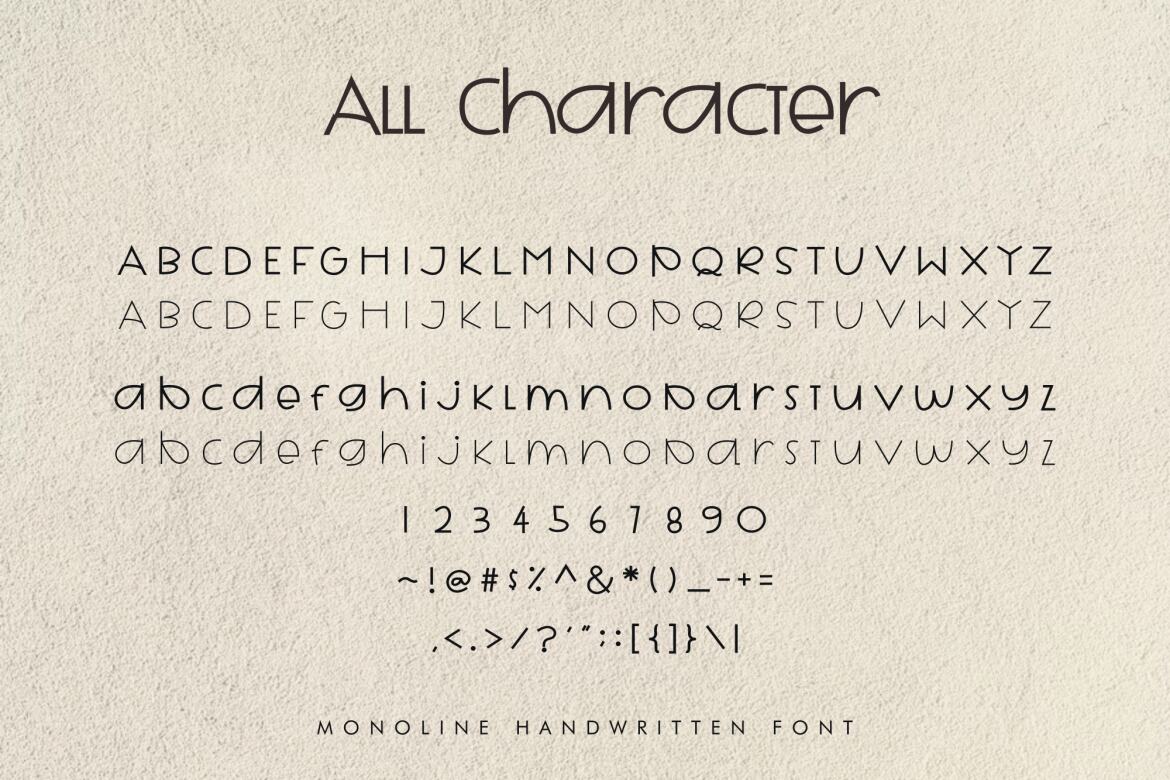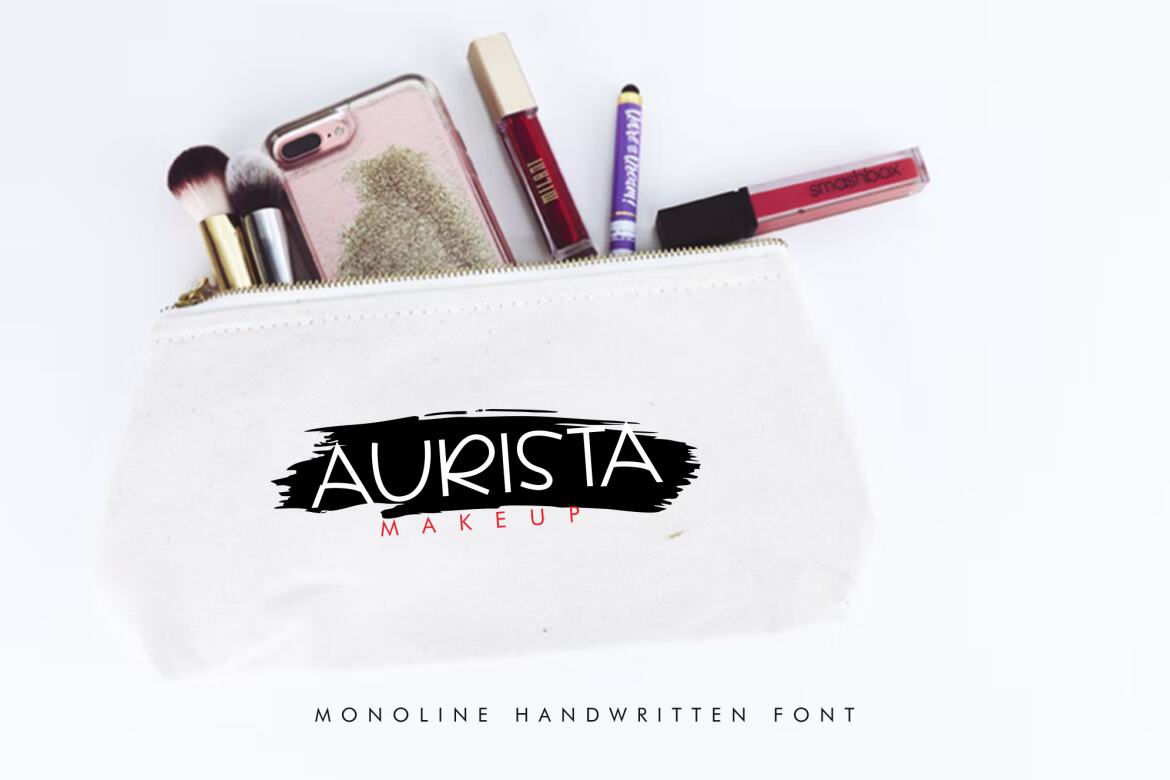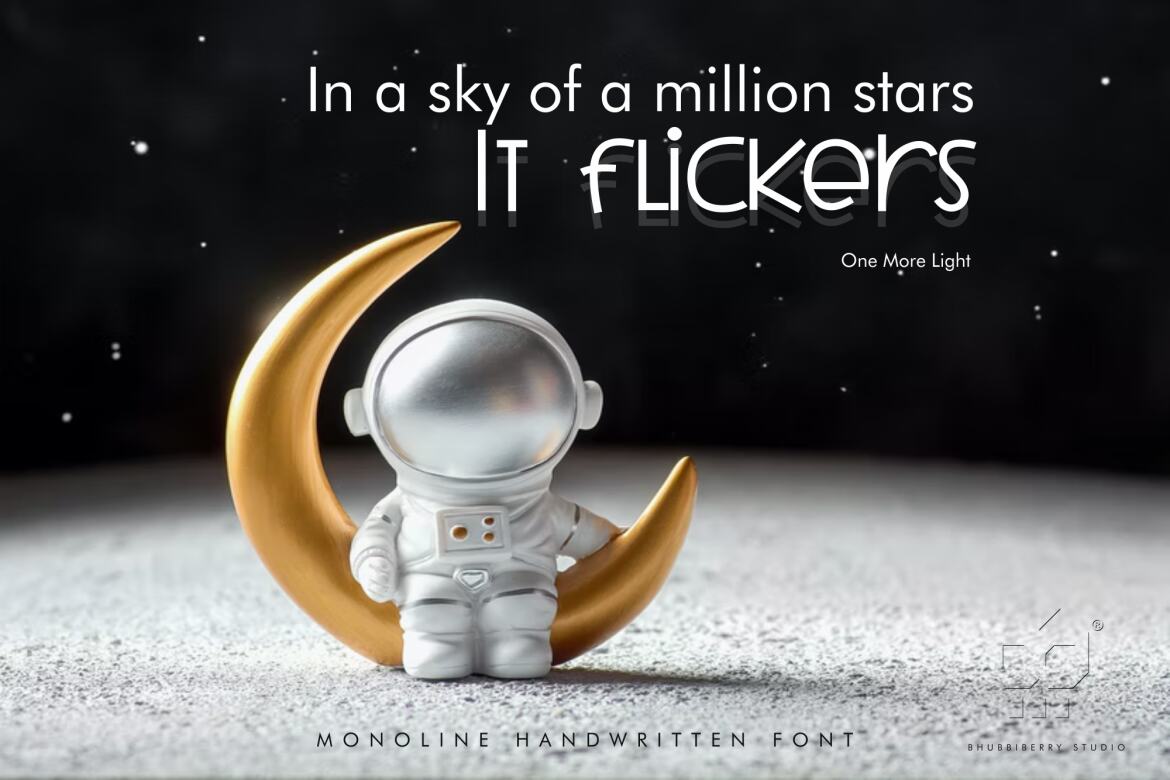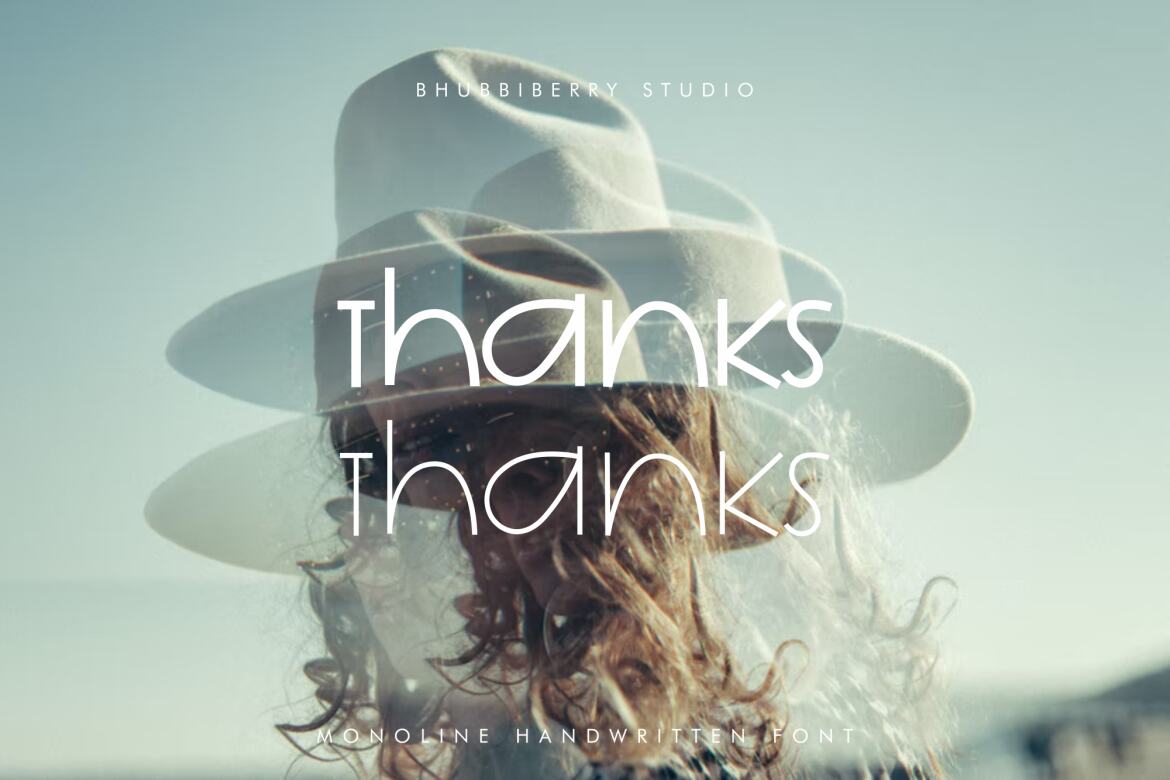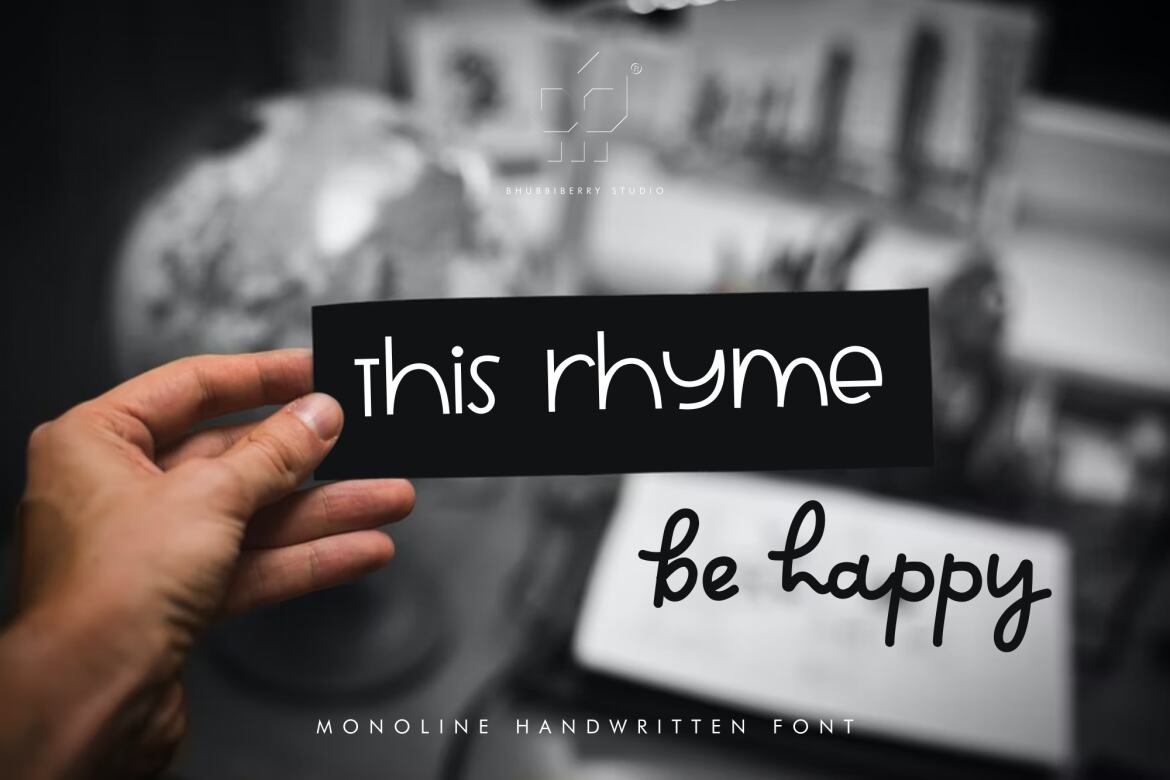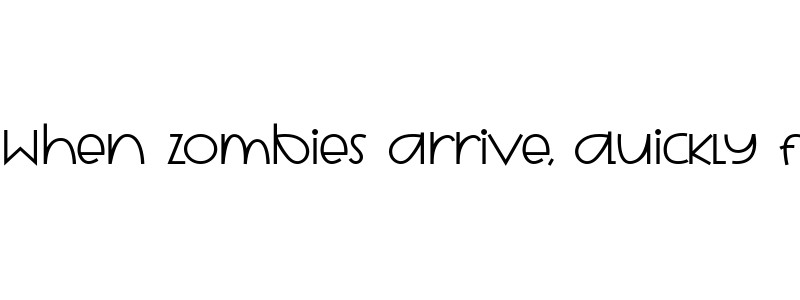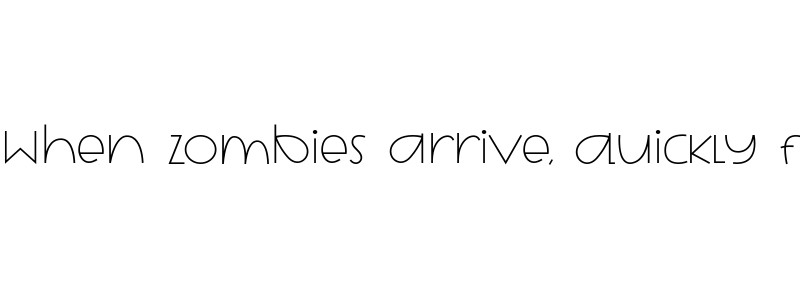
Aimee FREE Font
Introducing by Bhubbiberry Studio.
Proudly Present, Aimee
Aimee is a Handwritten Monoline Font.
Aimee is perfect for Product packaging, Branding projects, magazine, Social media, or just used to express words above the background.
• aimee can used to express words above the background.
• aimee is perfect for product packaging, branding projects, magazine, social media